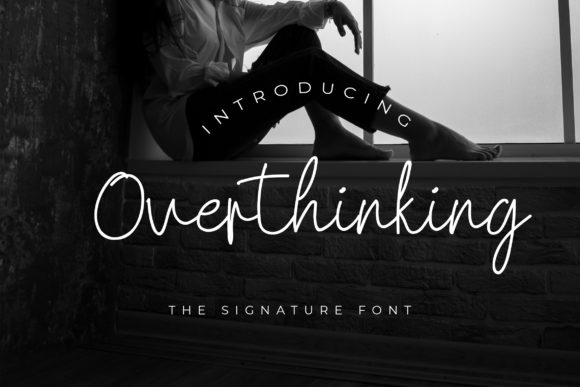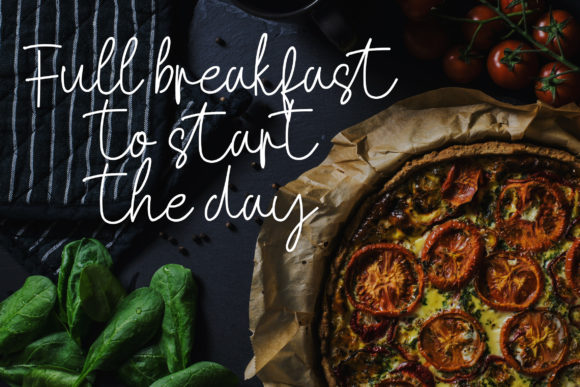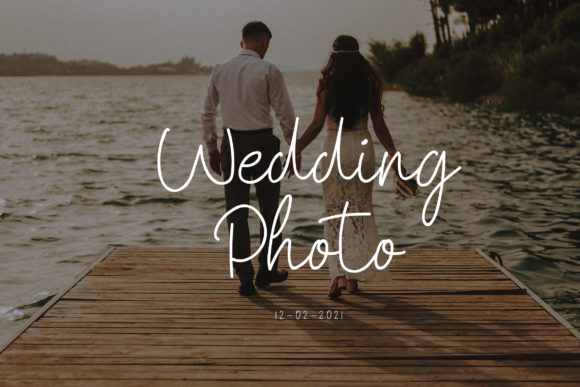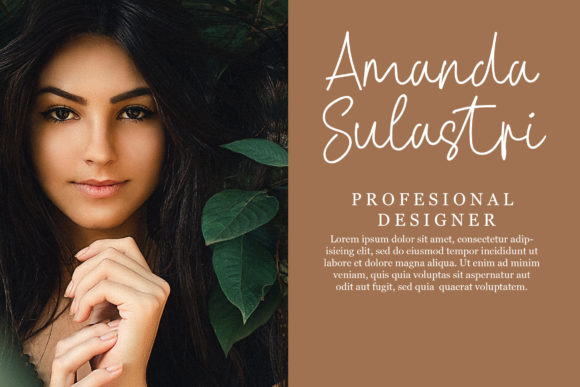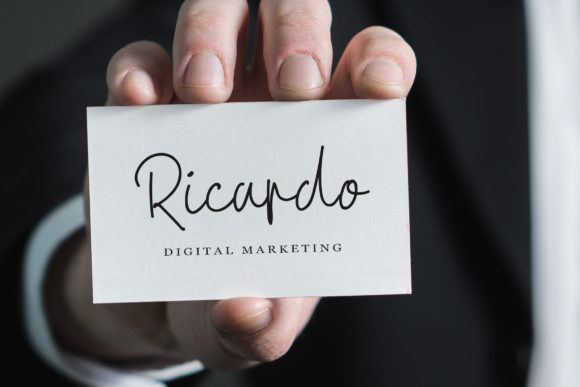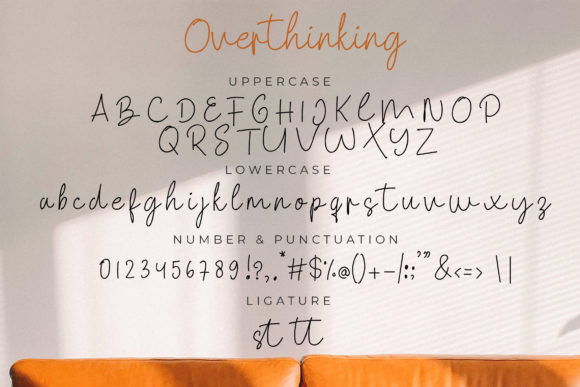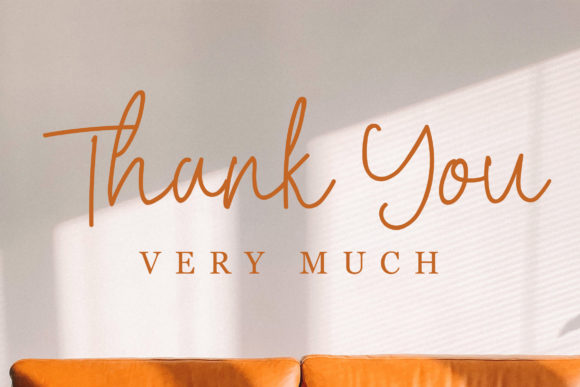
Overthinking Font
About Overthinking Font
Overthinking is a thin lettered and beautiful script font. It is the best choice for creating eye catching logos, branding and quotes. Every letter has a unique and beautiful touch, which will make your design come alive!